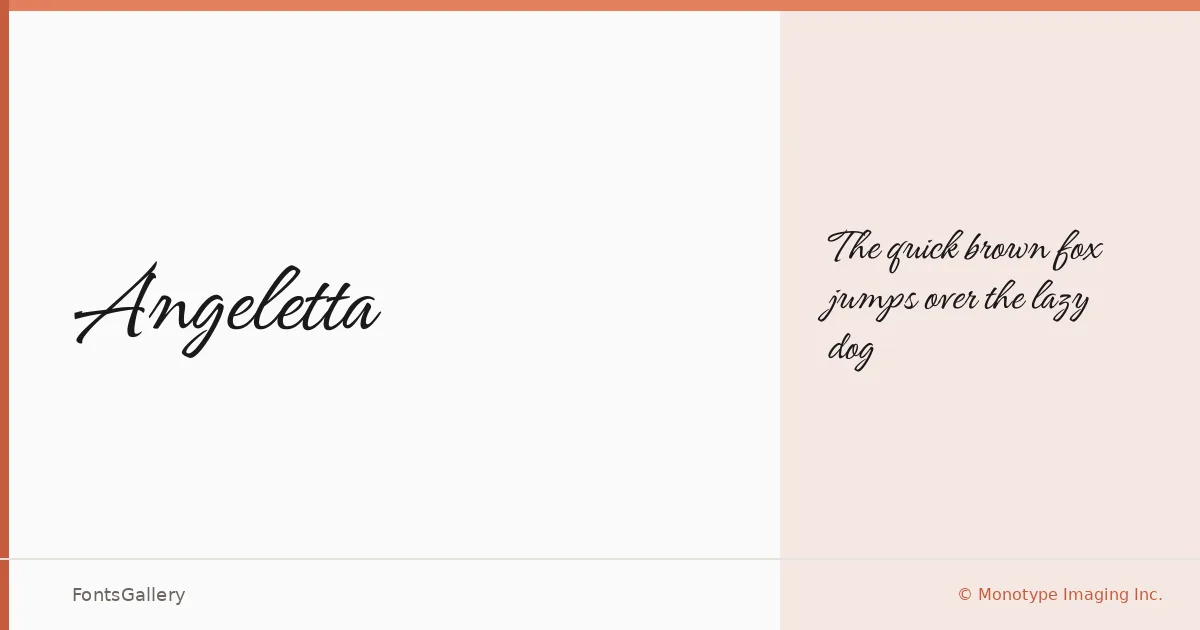
About Angeletta Font
There is a particular kind of restraint in a well-drawn formal script — the loops breathe, the connections feel inevitable rather than forced. Robert E. Leuschke drew this face for Monotype Imaging Inc. in 2018, rooting it firmly in calligraphic tradition while keeping the letterforms controlled enough to hold up at display sizes. The result sits comfortably in the calligraphy end of the script category without tipping into excess.
Classic, romantic, and unmistakably elegant, this is a single-weight script — Angeletta W04 Regular — delivered in TTF format. The forms carry the fluid axis and careful stroke contrast of traditional pen work, which gives the face its formal character. It covers the Latin character set, so European language copy in wedding and celebration contexts will sit naturally within the design.
The sweet spot is anywhere ceremony is expected: invitation cards, wedding suites, certificates, greeting cards, and identity work that needs a romantic register. For contrast pairings, the listed companions range from the refined geometry of Anglecia Pro to the neutrality of Helvetica, with Abrade and Aranea offering more textural options; AQUA rounds out the set for situations that need a second decorative voice.